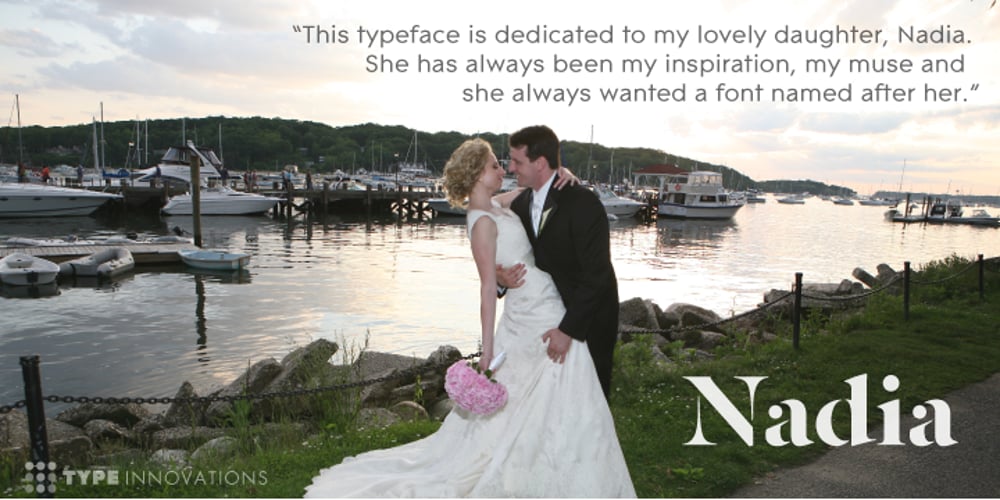
Nadia
Nadia font
Nadia Font Family was designed by Alex Kaczun and published by Type Innovations. Nadia contains 3 styles and family package options. Nadia is an original design by Alex Kaczun. It is a modern stencil interpretation of Granjon Oldstyle, highlighted by large elongated serifs, generous proportions and a large x-height. It is an elegant display for headlines as well as text. Named after his daughter, Nadia has a distinctively vibrant and baroque quality which some would even call sensuous. It’s a truly unique stencil treatment characterized by crisp, clean, rounded shapes.